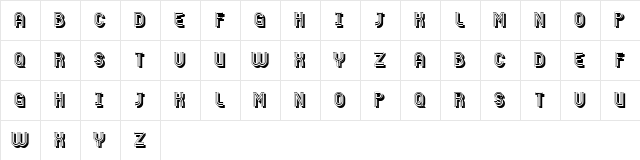
Birdbrain Regular
Design Context for Birdbrain Typeface
Birdbrain is a composed and adaptable typeface that performs quietly and consistently across a wide range of design contexts.